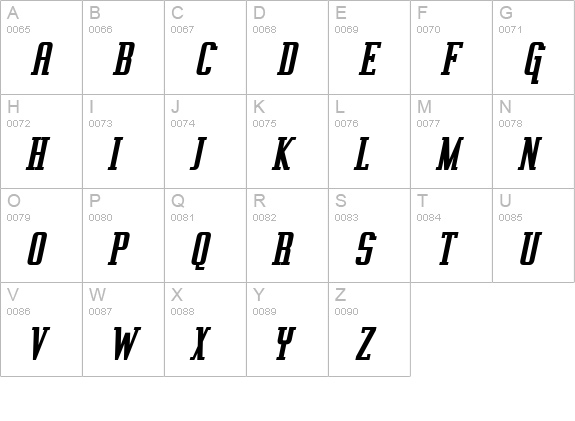
Vahika Bold Italic Font Details
Vahika Bold Italic is a strong, high-contrast, italic variant in the Vahika typeface family \xE2\x80\x94 well suited to headlines, attention-grabbing titles, and strong calls-to-action.
Introducing Vahika Bold Italic, a stunningly versatile font that exudes a bold and dynamic presence. This font is the perfect combination of strength and elegance, making it ideal for a wide range of design projects. Whether you're creating captivating headlines, eye-catching logos, or stylish branding materials, Vahika Bold Italic is the ultimate choice to make your designs stand out. With its strong, yet graceful letterforms, Vahika Bold Italic commands attention and leaves a lasting impression. The bold strokes and distinctive italic slant add a touch of sophistication and flair, making this font a true statement-maker. It effortlessly captures attention and conveys a sense of confidence and authority. But what makes Vahika Bold Italic even more impressive is that it is available for free! Yes, you read that right. This incredible font can be freely downloaded at FontsMarket.com, allowing designers and creatives to access its immense potential without any financial burden. Now, you can elevate your projects to new heights without breaking the bank. Vahika Bold Italic is not just visually appealing; it also boasts exceptional legibility and readability. Its carefully crafted letterforms ensure that your message is conveyed with clarity and impact, no matter the size or medium. From printed materials to digital platforms, Vahika Bold Italic remains sharp and crystal clear, guaranteeing that your designs leave a lasting impression on your audience. This font's versatility knows no bounds. It effortlessly adapts to various design styles, from modern and minimalist to elegant and ornate. Its timeless appeal ensures that it remains relevant and visually striking, no matter the current design trends. Vahika Bold Italic is a font that demands attention and delivers results. So why wait? Embrace the power and elegance of Vahika Bold Italic today. Download this remarkable font for free at FontsMarket.com and unlock a world of possibilities for your design projects. Let Vahika Bold Italic be the driving force behind your creative vision, enabling you to make a lasting impact with every stroke.